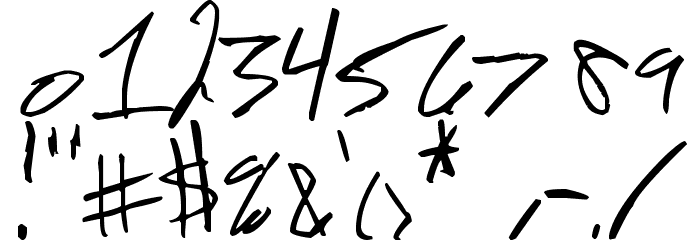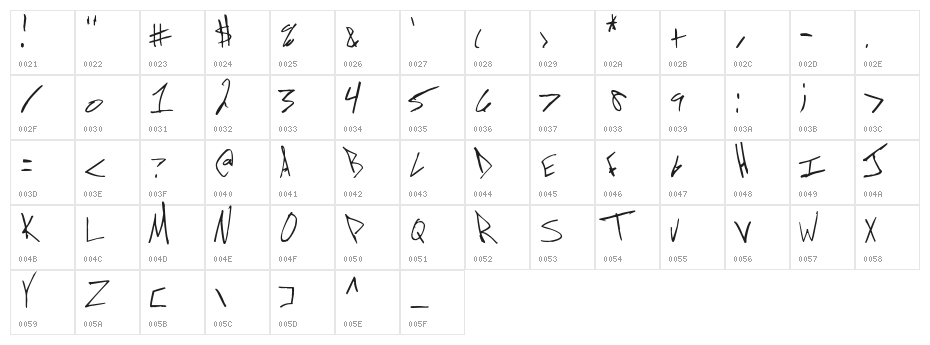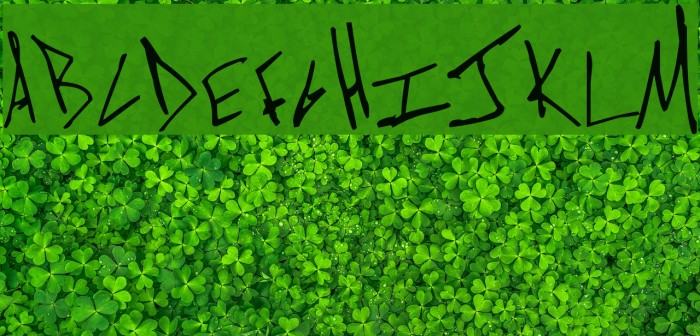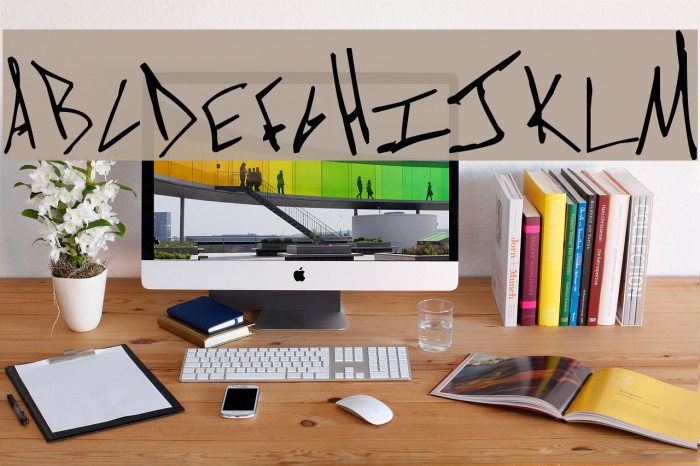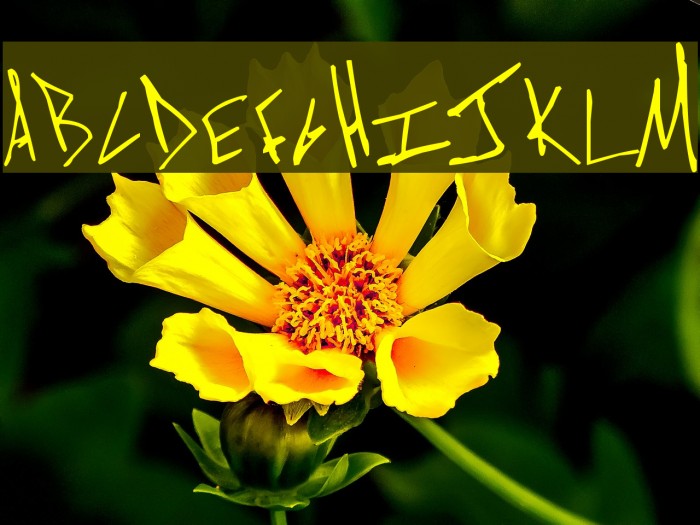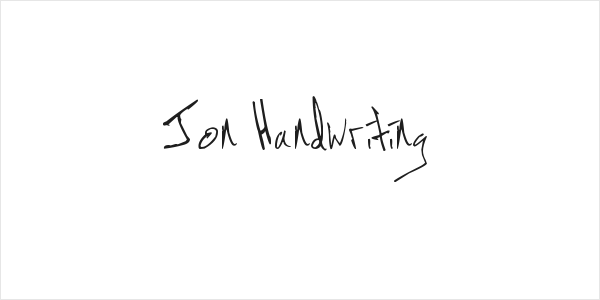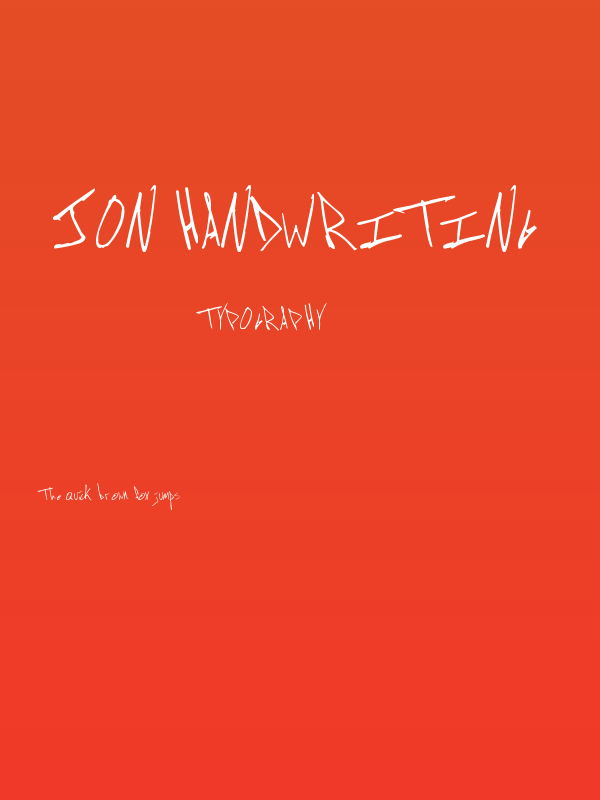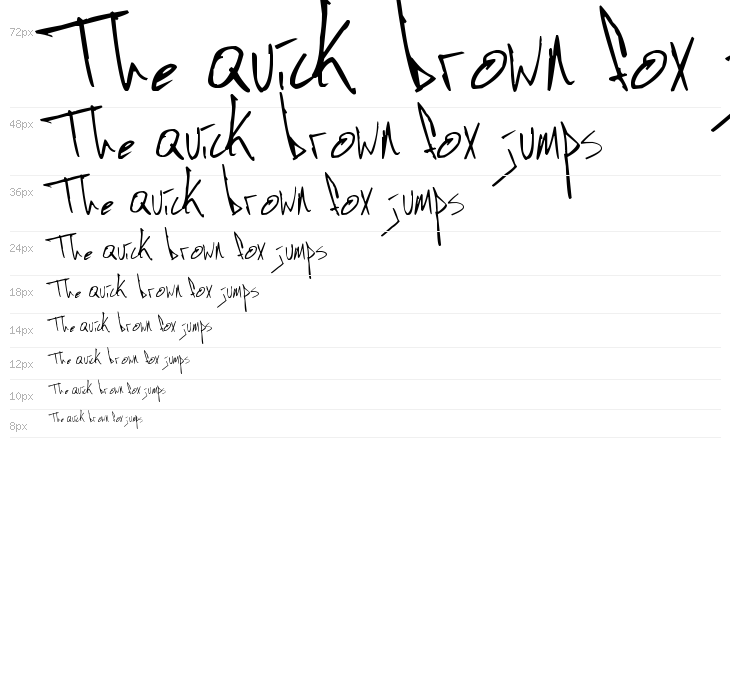
Jon Handwriting Font
Jon Handwriting Description
This font exudes a raw, energetic vibe with its hand-drawn, irregular strokes. Each character is uniquely crafted, giving an authentic handwritten feel. The uppercase letters are bold and assertive, while the lowercase letters maintain a playful and casual tone. Numbers and special characters follow the same dynamic style, adding to the font's overall cohesive appearance. The strokes vary in thickness, contributing to a lively and spontaneous look. This font captures the essence of personal expression and creativity, making it ideal for projects that require a touch of individuality and flair.